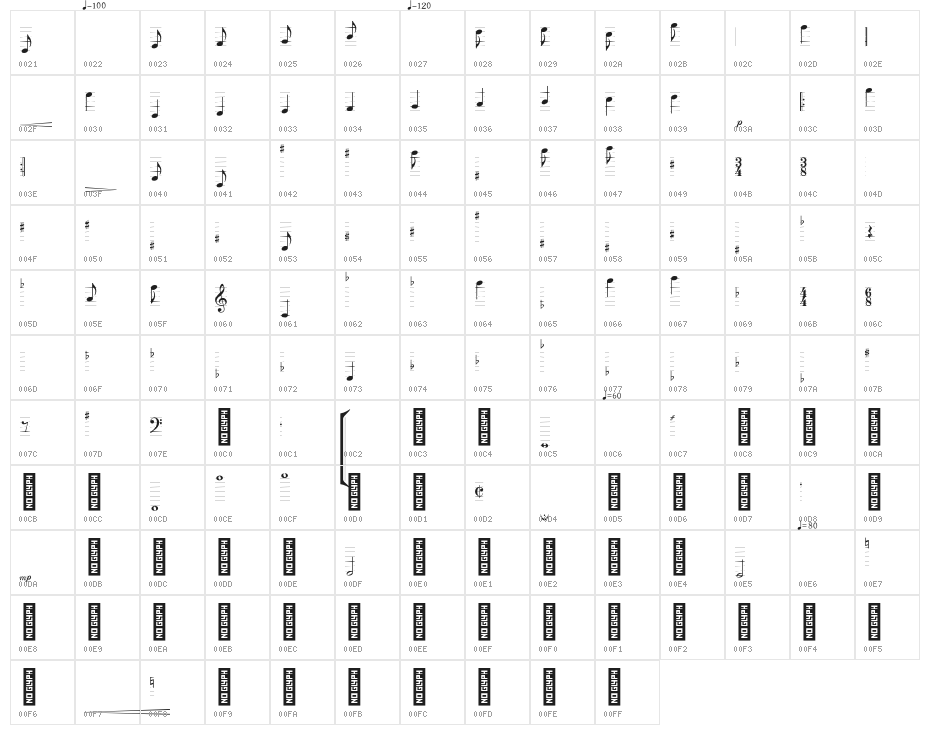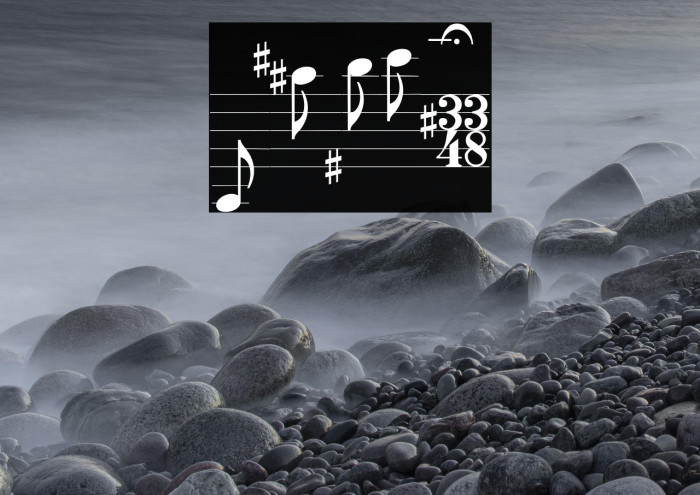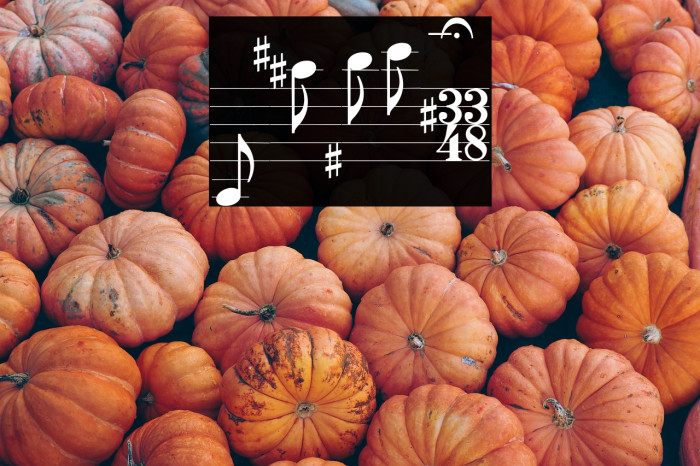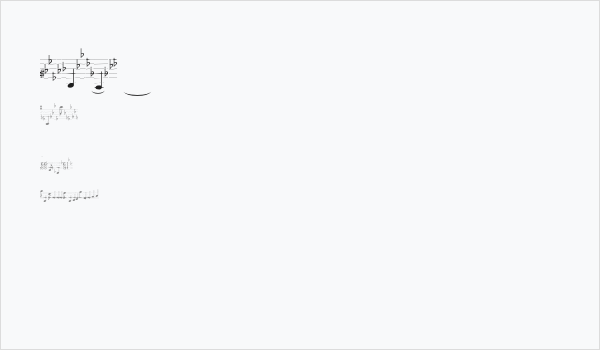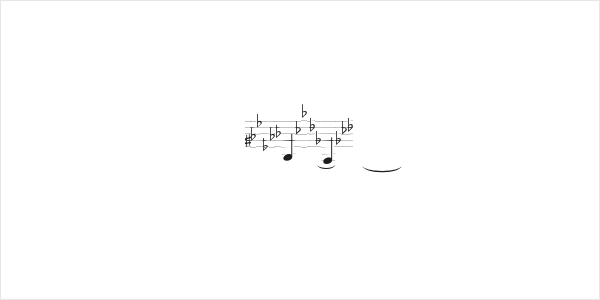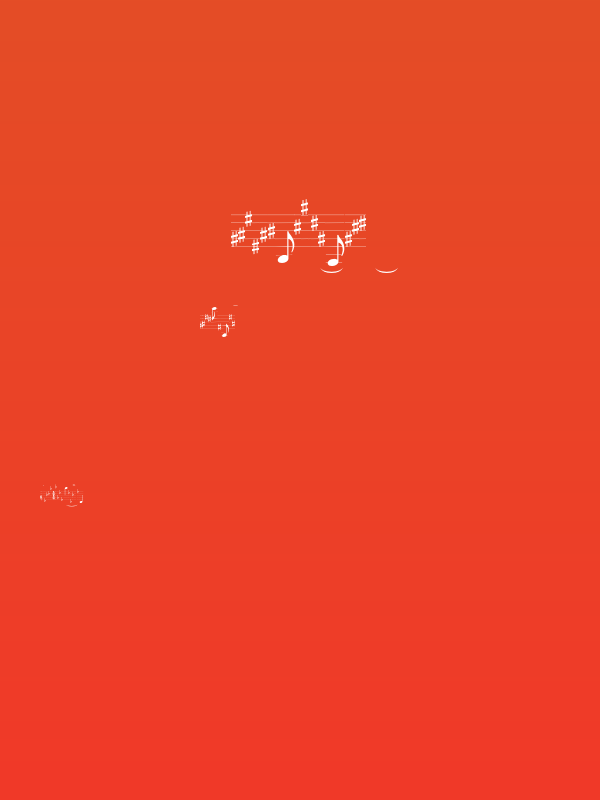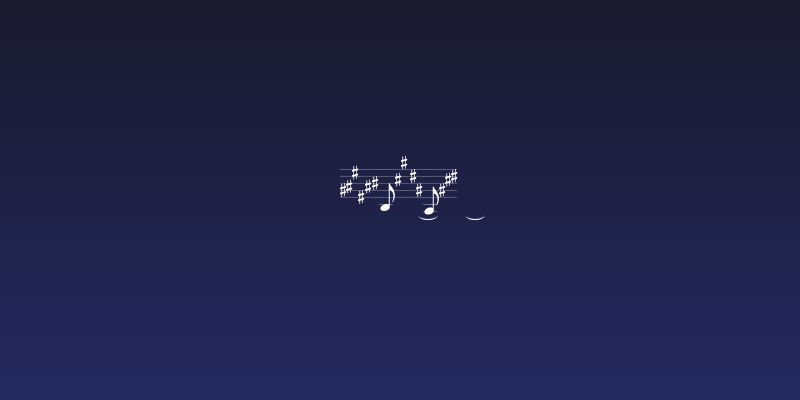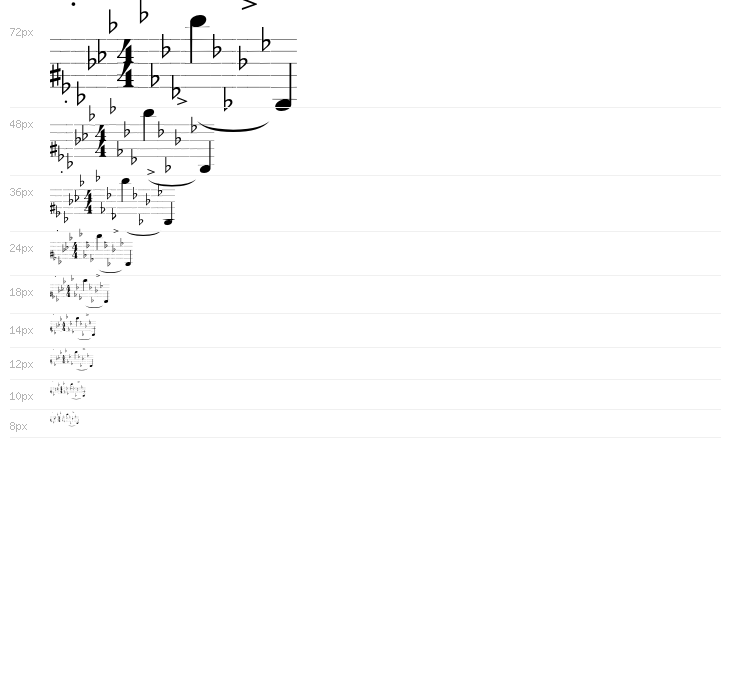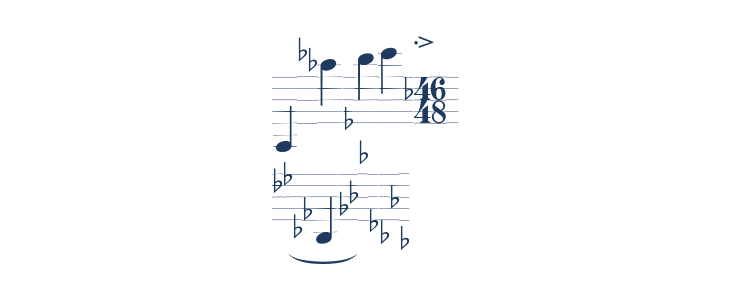
TypeMyMusic Notation Font
TypeMyMusic Notation Description
A specialized music notation font featuring clear, bold noteheads, accidentals, time signatures, and staff lines, designed for readability in sheet music and scores.
Overall StyleClassic, Functional
Use CaseMusic notation, Educational materials, Professional scores
Proposed ProjectsSheet music publishing, music education materials, digital notation software, orchestral scores.